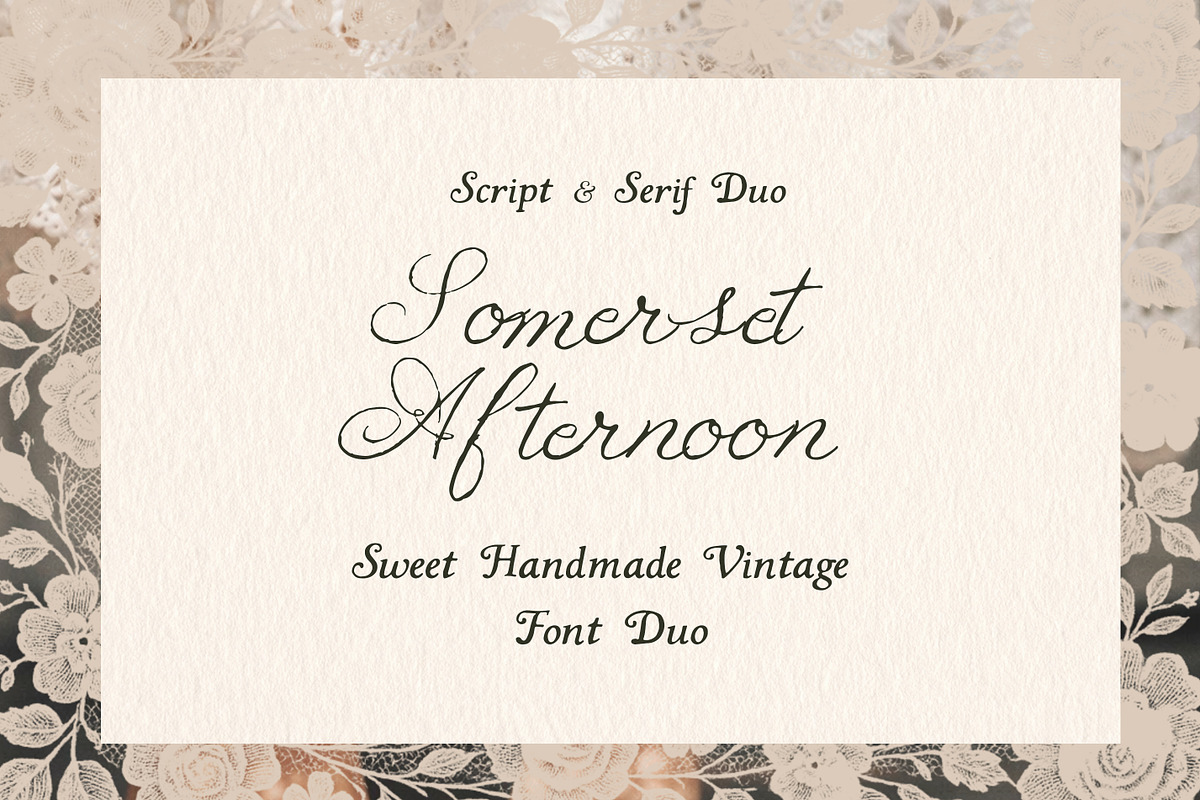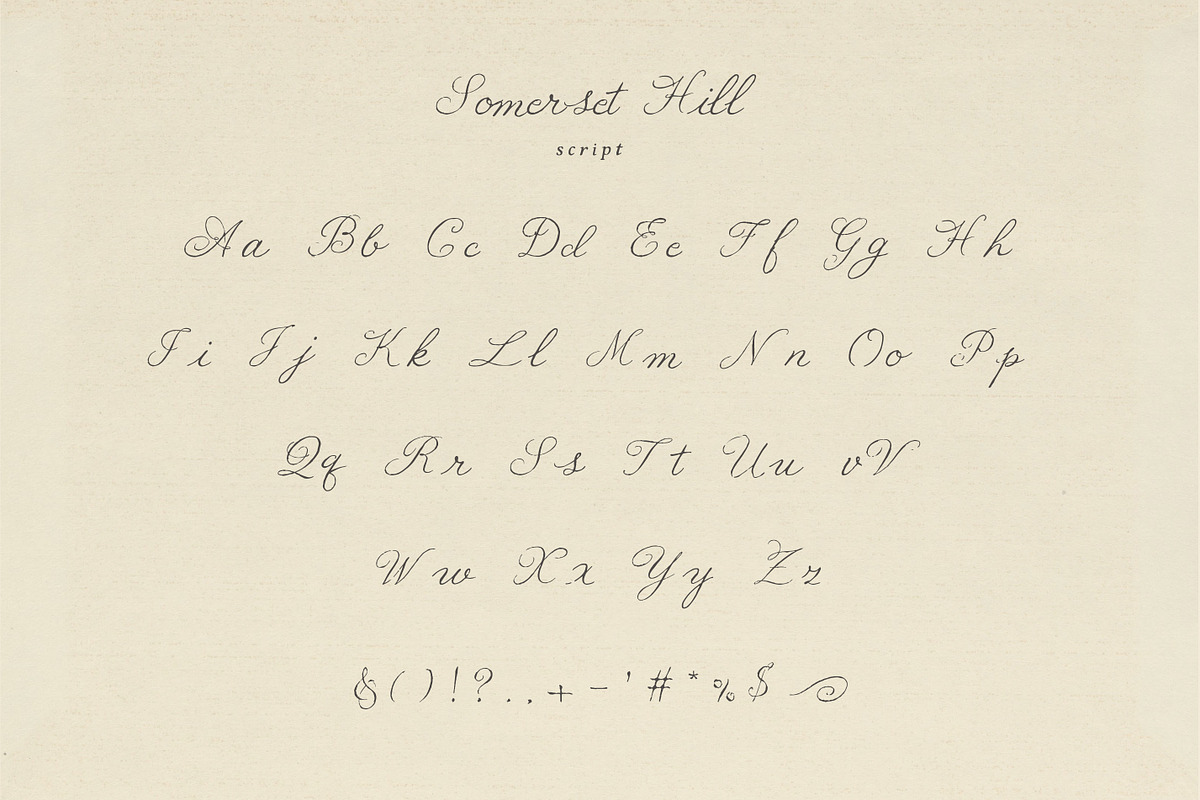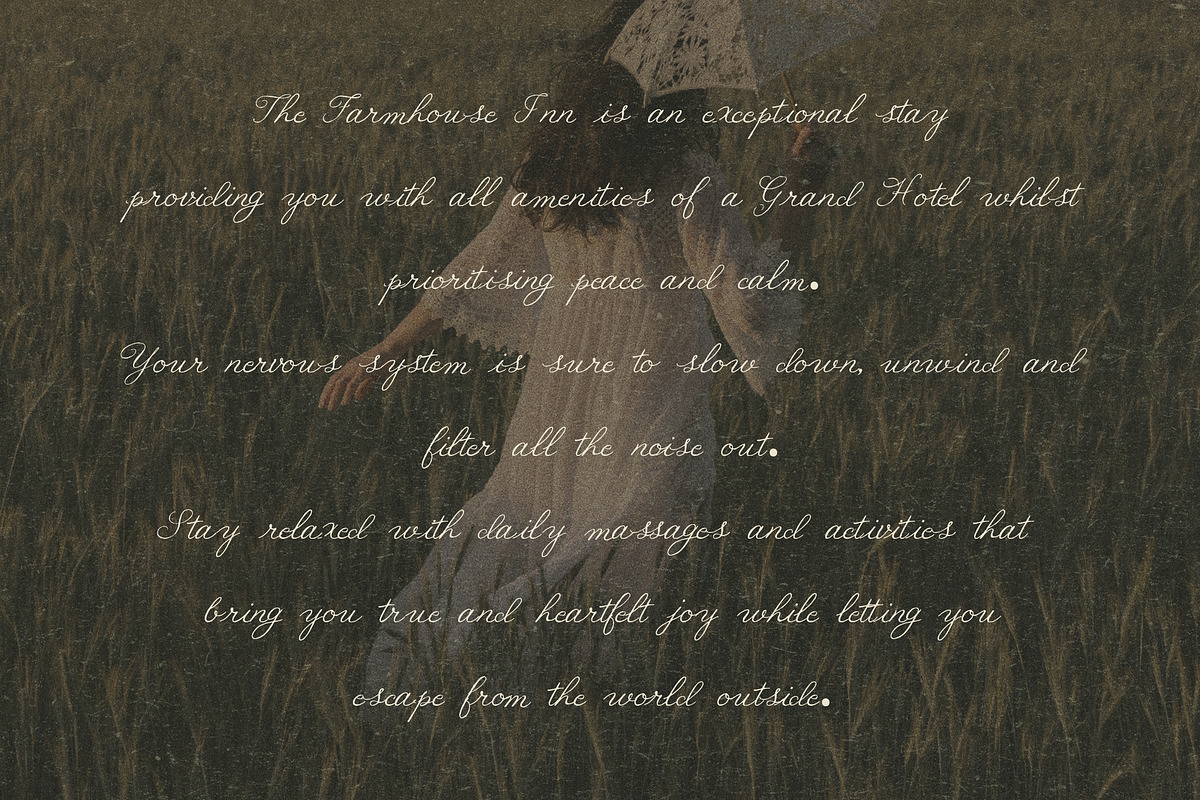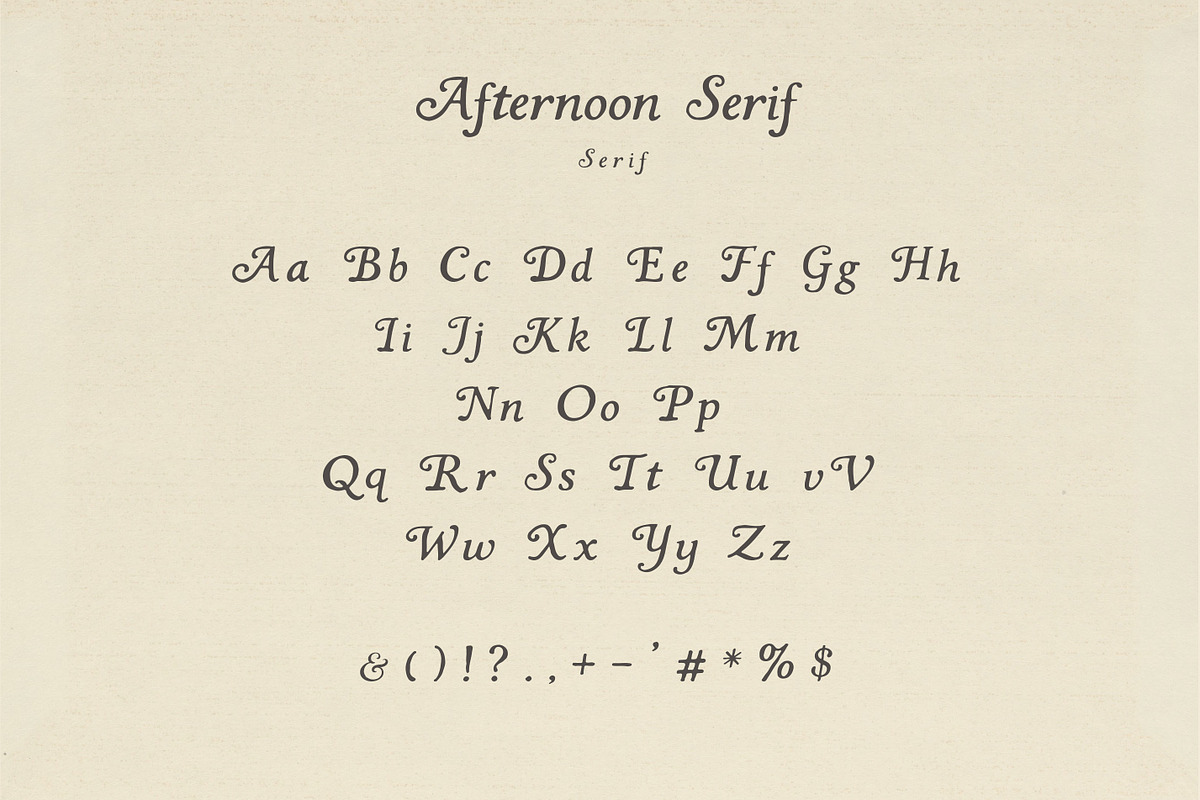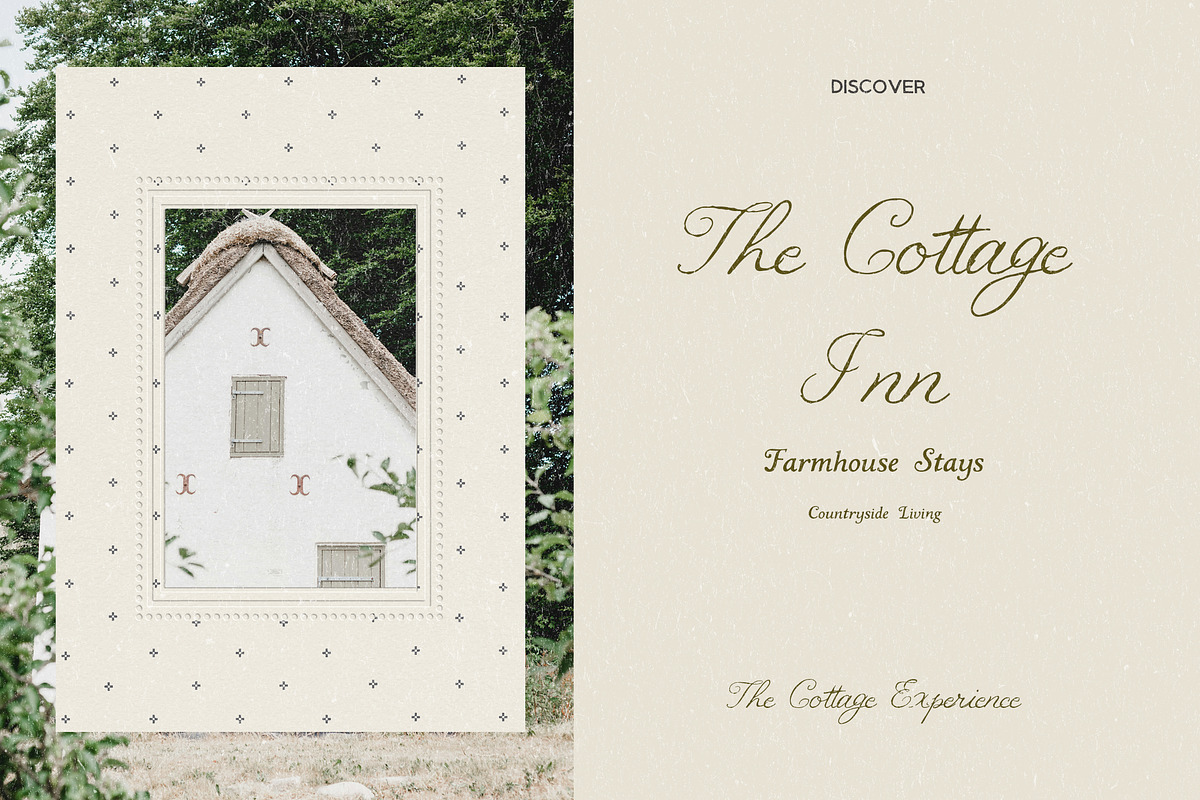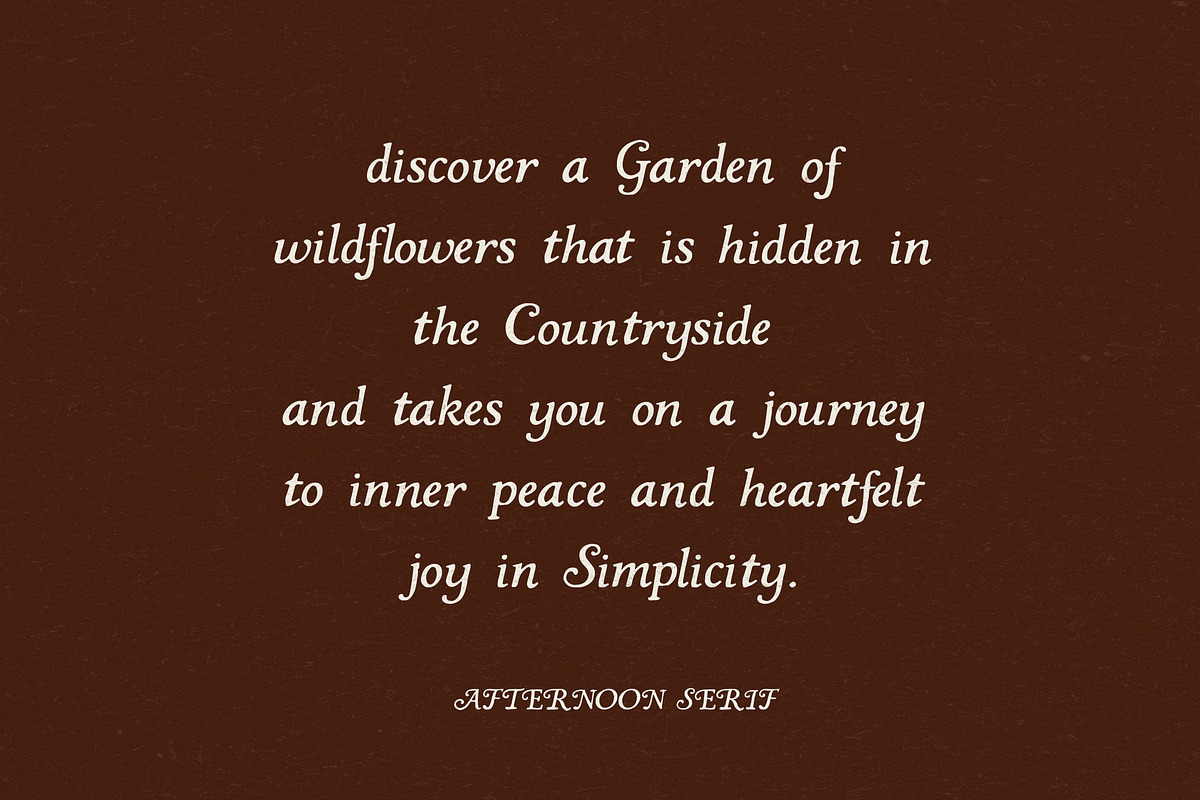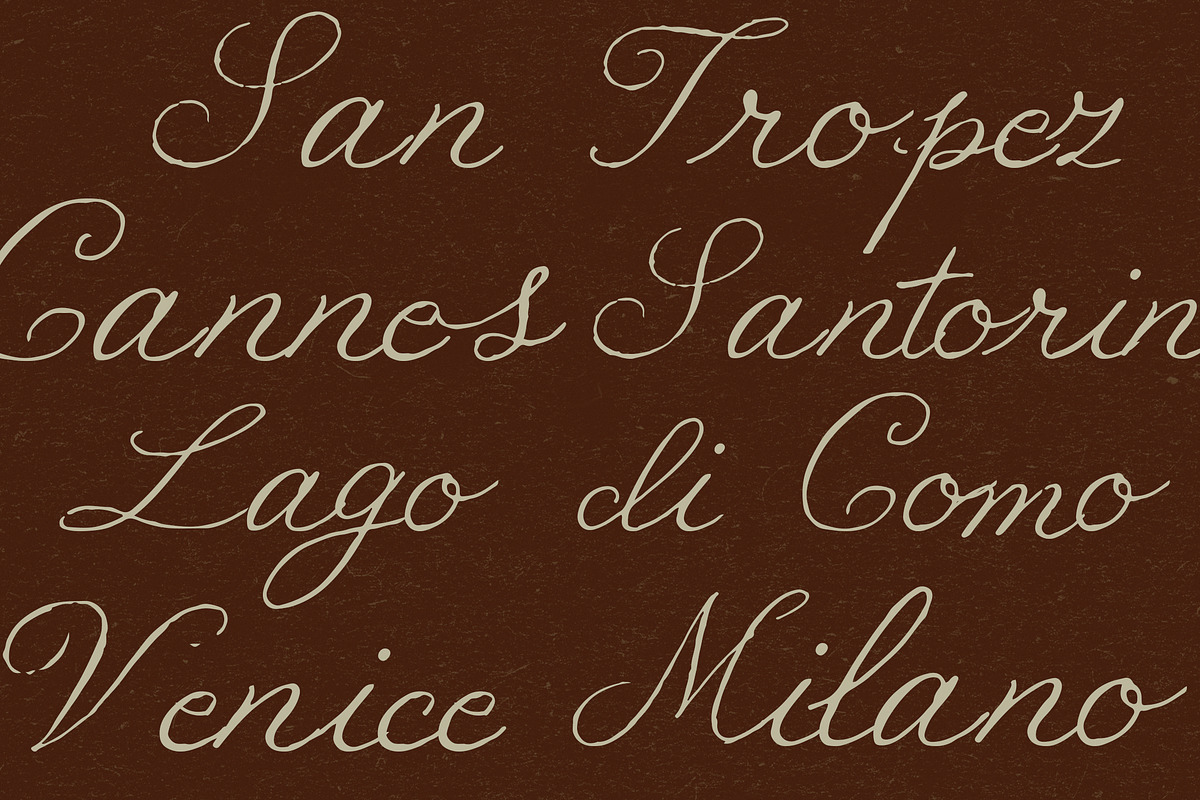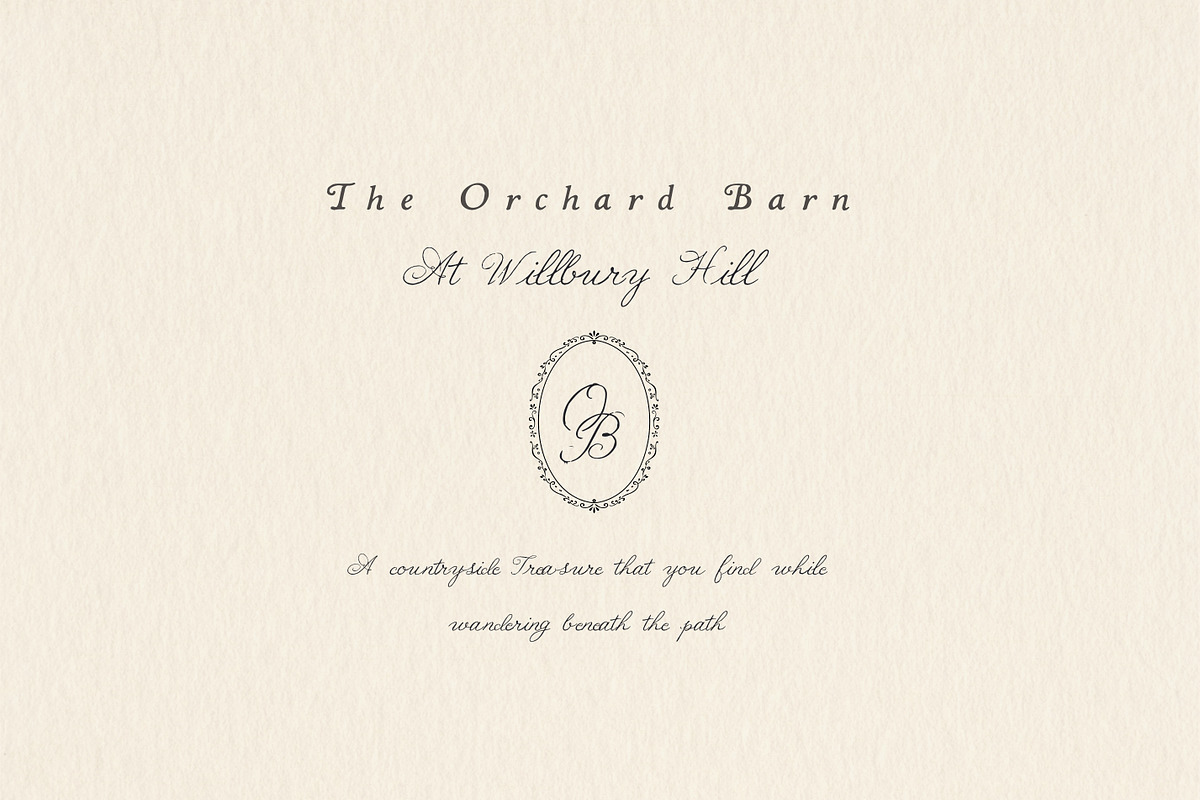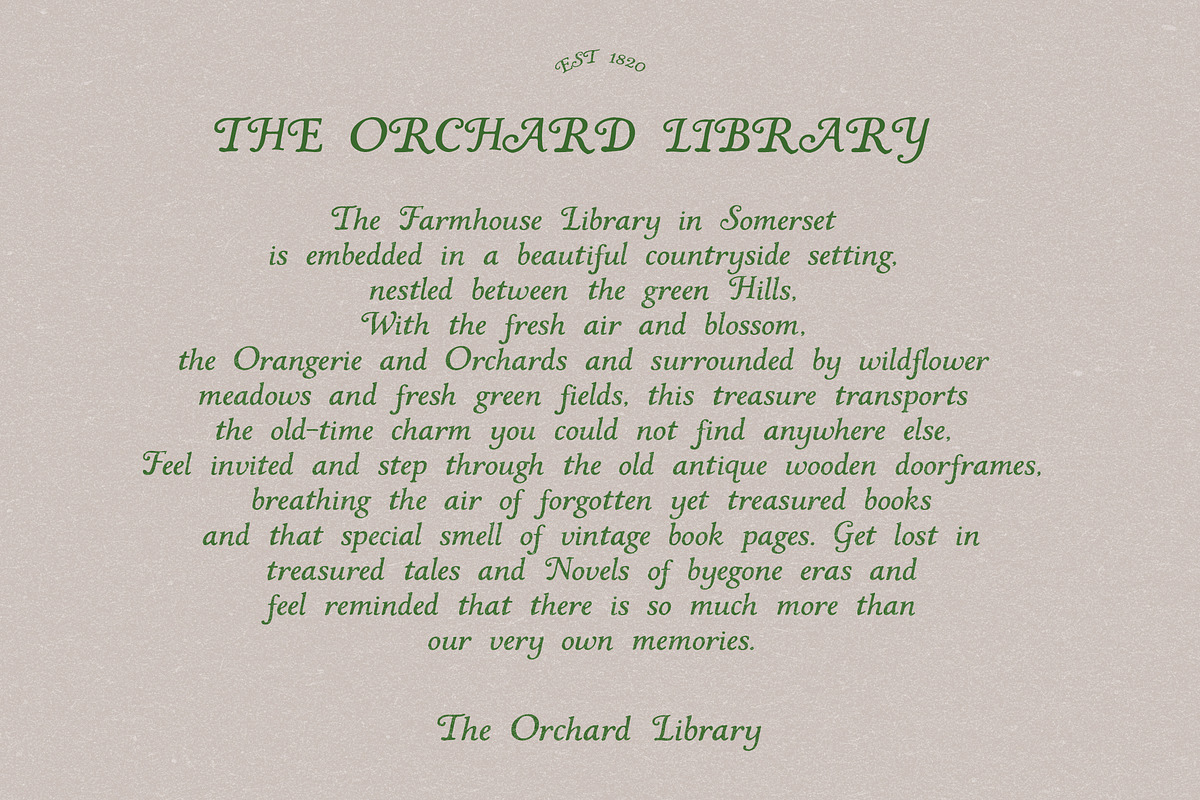
Handmade Script and Serif Font Duo
A vintage font duo full of rustic cottage charm. This beautiful handwritten ink pen script and rustic charming serif duo adds the first rays of sunshine to your artwork. Discover the hidden treasures of farmhouses, barns and orchards and revive the vintage beauty of rustic and handwritten notes.
The antique serif comes with hand drawn swashes and a subtle overprint effect of old typewriters. The hand lettered script transports it's charm with a handwritten ink texture and natural line variation, where strokes shift between thick and thin and occasionally break, mimicking the organic flow of a real ink pen.